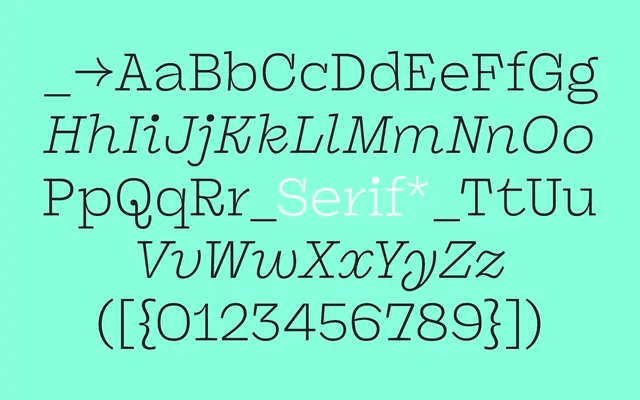
A four-subfamily superfamily spanning serif, sans, sans mono and mono cuts, each offered in five weights with italics across 40 fonts total.
Panel is a superfamily from PS Type Lab that pairs a serif and a sans with two monospaced variants, Panel Mono and Panel Sans Mono. All four subfamilies share the same weight range from Light to Black with matching italics, giving 40 fonts in total. The consistent structure makes it well suited to editorial systems and interfaces where multiple voices need to coexist.
The family includes a serif subfamily (Panel), a sans (Panel Sans) and a mono (Panel Mono), making serif the primary category. The structured naming and range suggest a contemporary workhorse family.